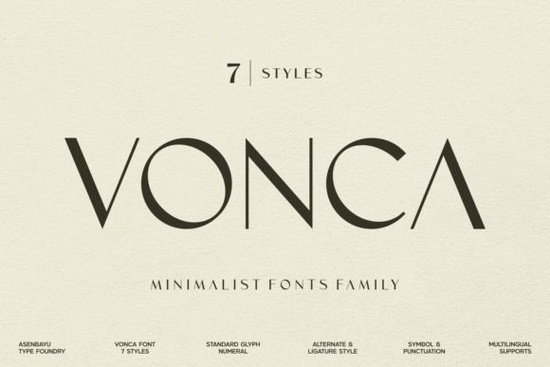
Vonca Font is a versatile typeface that brings a fresh, modern look to any design project. Whether you're working on packaging, logos, or posters, this minimalist font family offers a clean and professional appearance. Its geometric shapes and simple lines make it ideal for both contemporary and vintage styles, giving you the flexibility to match your creative vision.
Designed with efficiency in mind, Vonca Font ensures readability without sacrificing style. It’s particularly well-suited for projects that require a sleek and modern aesthetic. From fashion branding to print-on-demand items, this font can enhance the visual appeal of your work while maintaining a sense of sophistication.
If you’re looking for a font that balances form and function, Vonca Font is an excellent choice. Its adaptability makes it a valuable addition to any designer’s toolkit. You can use it across different mediums, including digital and print formats, ensuring consistency in your brand identity.
What Makes Vonca Font Unique?
Vonca Font stands out due to its emphasis on simplicity and clarity. The font family includes multiple weights, allowing you to create hierarchy and visual interest in your designs. This versatility is especially useful when working on multi-page layouts or complex graphic compositions.
The minimalist approach of Vonca Font also makes it easy to pair with other typefaces. Whether you're using it as a headline or body text, it complements a wide range of styles without clashing. This makes it a go-to option for designers who want to maintain a cohesive look across their projects.
Best Uses for Vonca Font
Vonca Font works well in a variety of design contexts. For example, it’s a great option for packaging labels that need a modern yet elegant look. Its clean lines make it easy to read at small sizes, which is essential for product labels and tags.
This font is also popular among logo designers who want to create a strong, memorable brand identity. Its geometric structure adds a sense of professionalism, making it suitable for businesses that want to convey trust and reliability.
In addition, Vonca Font is ideal for poster designs and branding materials. It provides a polished appearance that can elevate the overall look of your work. Whether you're designing for a fashion brand or a local business, this font can help you achieve a refined and modern style.
How to Use Vonca Font Effectively
To get the most out of Vonca Font, consider the following tips. First, choose the right weight for your project. Lighter weights are best for body text, while bolder versions work well for headlines and titles.
Second, experiment with spacing and alignment. Proper kerning and tracking can improve the readability and visual balance of your design. This is especially important when using the font in larger blocks of text.
Finally, don’t be afraid to pair Vonca Font with other typefaces. A contrasting font can add depth and interest to your composition. Just make sure the combination feels harmonious and doesn’t distract from the main message.
Whether you're a designer, crafter, or small business owner, Vonca Font provides a reliable and stylish solution for your typography needs. Its clean design and adaptability make it a valuable asset in any creative workflow.
Before finalizing your design, take a moment to review how the font looks in different contexts. Test it on various backgrounds and sizes to ensure it meets your requirements. This attention to detail can make a big difference in the overall quality of your work.
By choosing Vonca Font, you’re investing in a typeface that combines functionality with aesthetic appeal. Its modern design and versatility make it a great choice for a wide range of projects. With the right application, this font can help you achieve a professional and polished look.
As you continue to explore your design options, remember that the right font can significantly impact the success of your work. Vonca Font is a solid choice that can help you express your creativity while maintaining a clean and modern appearance.
- Choose the appropriate weight for your design
- Ensure proper spacing and alignment
- Test the font in different sizes and backgrounds
- Pair it with complementary typefaces if needed
- Review the final output for readability and visual appeal